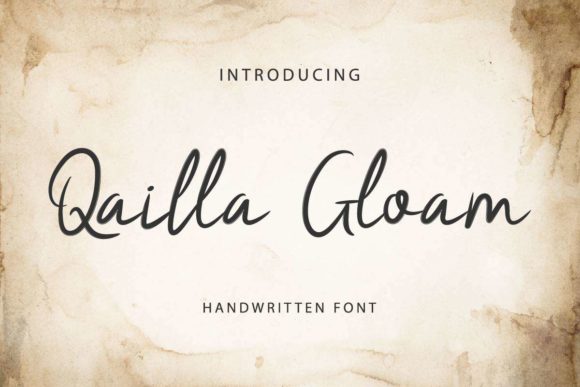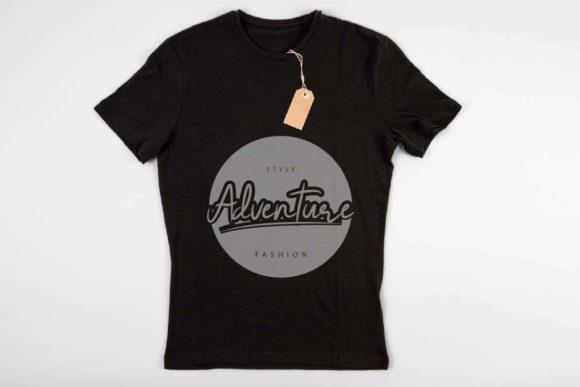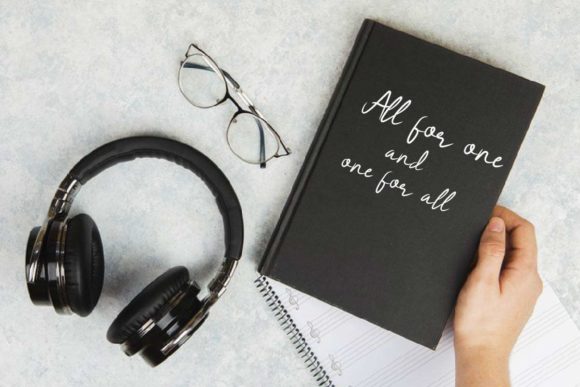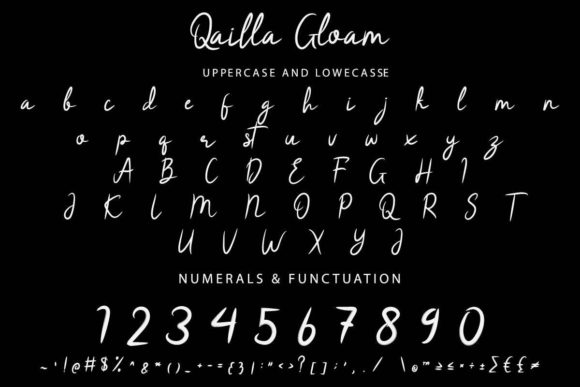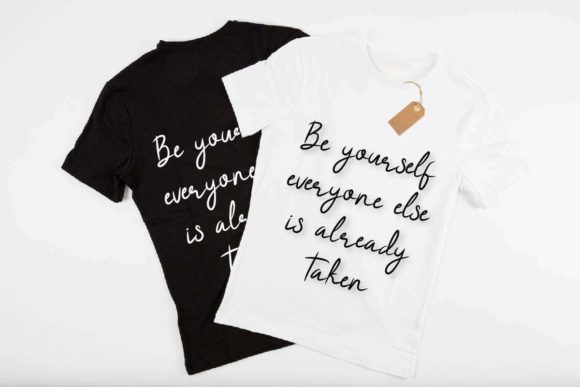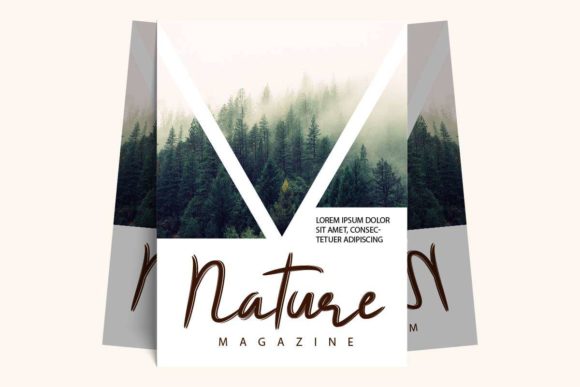
Introduction to Qailla Gloam Font
Do you remember that moment when a beautiful font just clicks with your creative vision? For designers, it’s like finding the perfect brush stroke in a painting – it elevates the entire piece. I had that moment when I discovered the Qailla Gloam Font, and I’m excited to share its charm with you.
This elegant, fun script font was crafted using a brush pen, giving it a unique, hand-drawn feel. Its high-quality design makes it a valuable resource for any creative project. Whether you’re working on logos, branding, social media, or DIY crafts, Qailla Gloam Font is the perfect fit. With its transparent background, it’s easy to layer and combine with other design elements, giving you endless possibilities.
Key Features of Qailla Gloam Font
- Unique, high-quality design resource with a mystical and enchanting feel, ideal for creative projects.
- Comes in a single weight, perfect for adding a touch of elegance to your design without overwhelming the composition.
- Perfect for use in various creative projects, including invitations, posters, branding materials, and more.
Honest Review: Qailla Gloam Font
I recently had the chance to work with the Qailla Gloam Font, and I must say it’s been a great addition to my design resource library. ✨ The font’s high quality and unique aesthetic make it perfect for creative projects that require a touch of elegance.
One of the standout features of this font is its transparent background, which allows for seamless layering and blending with other design elements. This is especially useful when working on complex designs that require a high degree of customization.
Here are some of the key features that I liked about the Qailla Gloam Font:
- High-quality vector graphics
- Unique and stylish aesthetic
However, I did encounter a few limitations when working with this font:
- Limited character set, which may not be suitable for long-form text
- No bold or italic styles, which may limit its versatility
Overall, I’m very impressed with the Qailla Gloam Font and would definitely recommend it to designers looking for a high-quality design resource. Its unique aesthetic and transparent background make it perfect for creative projects, and the free download is a great bonus.
The Qailla Gloam Font is a high-quality design resource perfect for any creative project. This unique font features a transparent background, making it an ideal choice for designers who want to add a touch of elegance to their work.
Tips for Getting the Most Out of Qailla Gloam Font
To get the most out of the Qailla Gloam Font, try using it in combination with other design elements, such as graphics and textures. Experiment with different font sizes and styles to create a unique look that suits your project.
The Qailla Gloam Font is ideal for use in a variety of creative projects, including:
– Wedding invitations and stationery
– Branding and marketing materials
– Digital art and illustrations
Can I customize the Qailla Gloam Font to fit my design needs?
Yes, the Qailla Gloam Font is fully editable and can be customized to fit your design needs. You can adjust the font size, color, and style to match your creative project’s requirements.